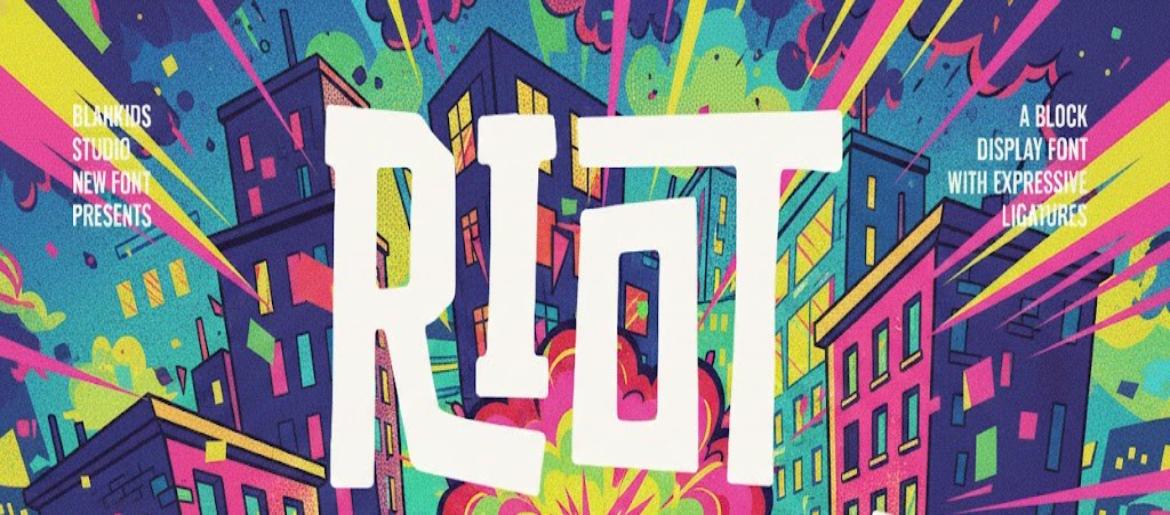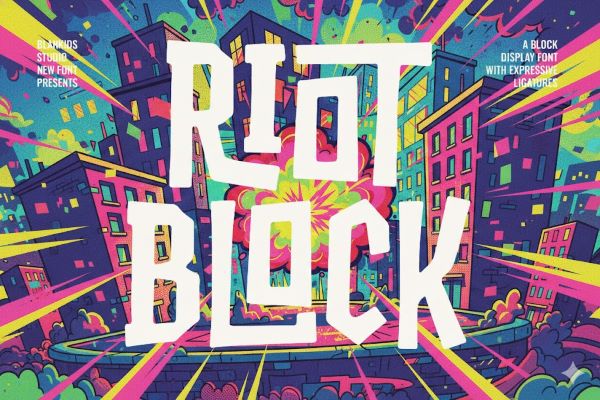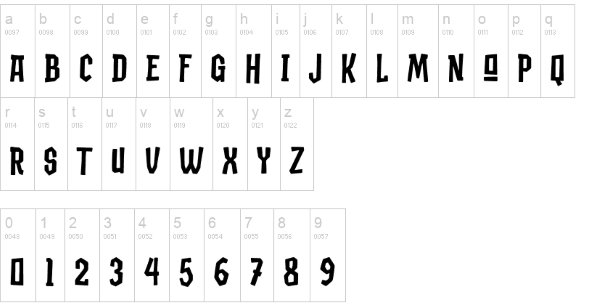
Riot Block Font
Riot Block is a bold block-style display font created to inject raw energy and strong visual impact into designs. With solid letterforms and expressive details, it delivers a rebellious yet playful character that instantly stands out in posters, headlines, logos, and street-inspired graphics.